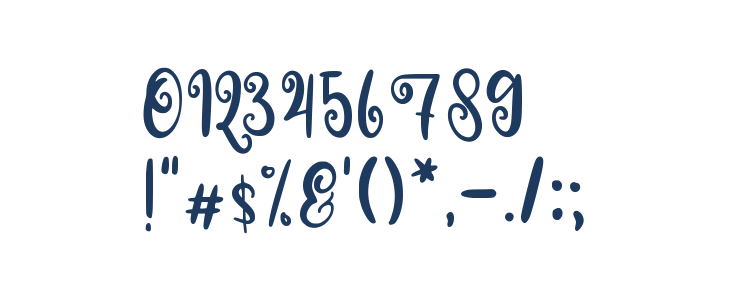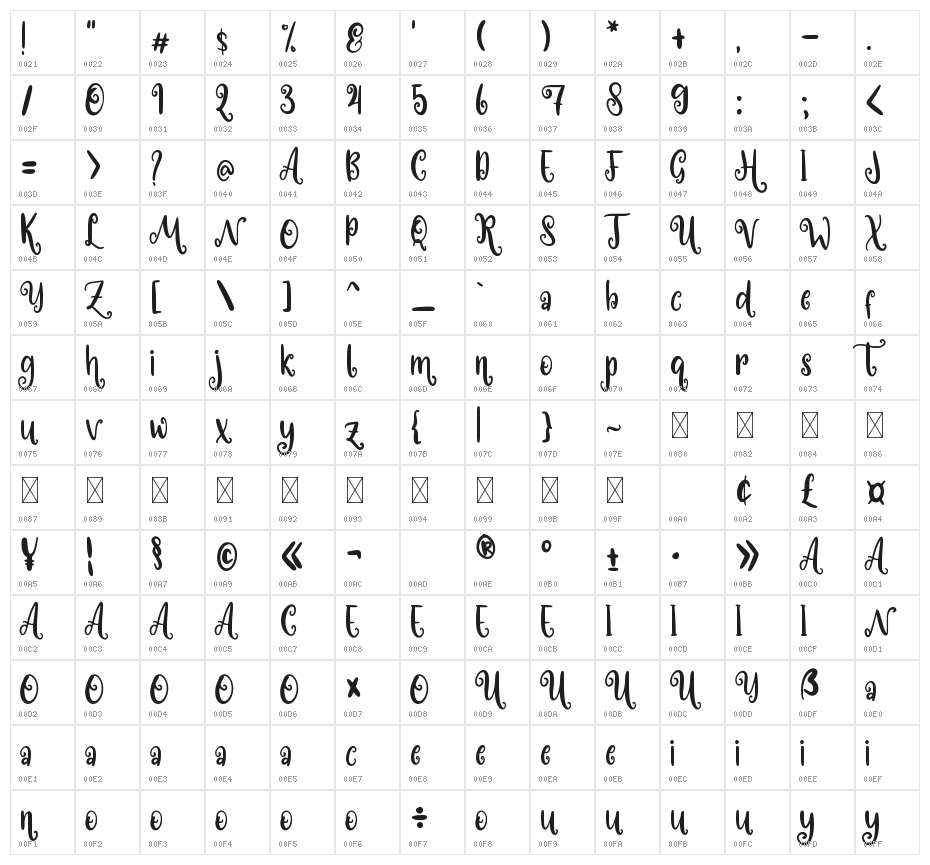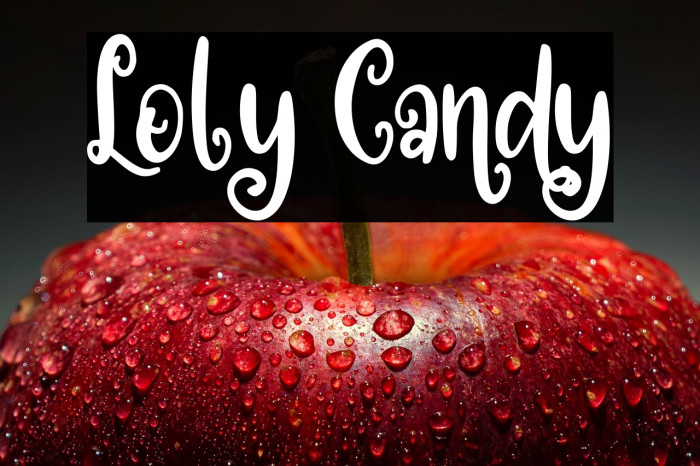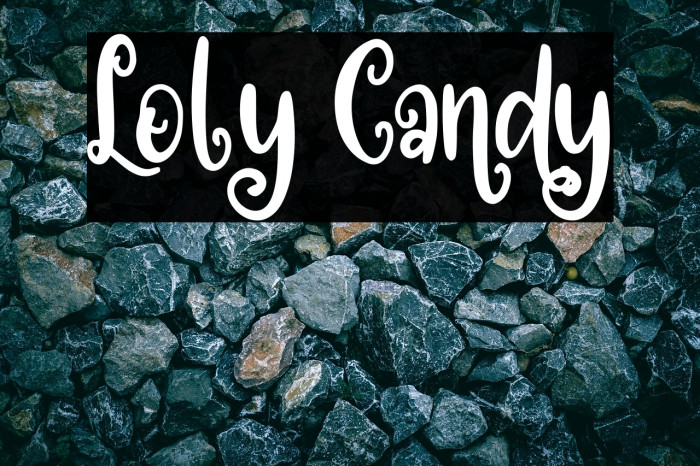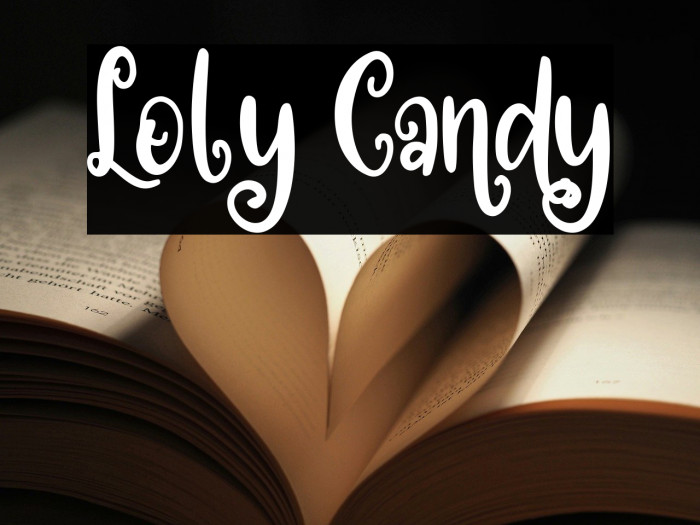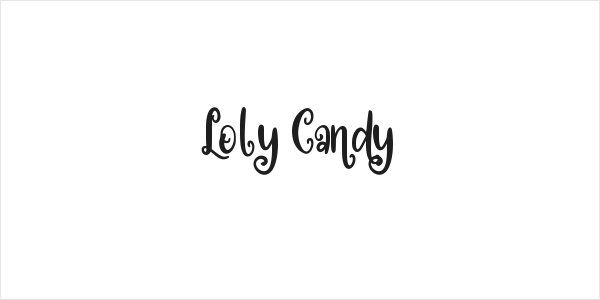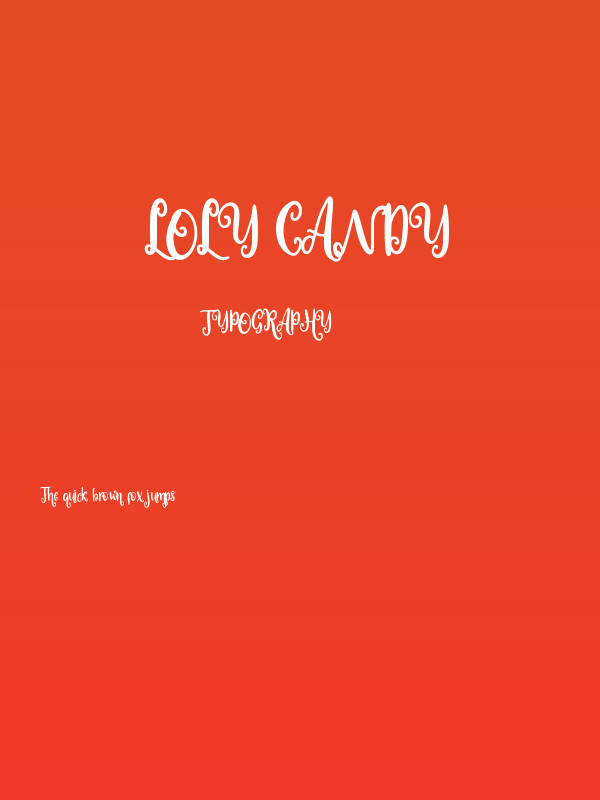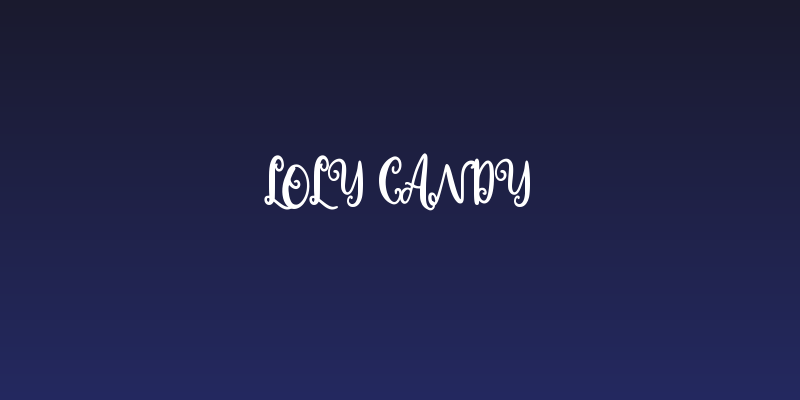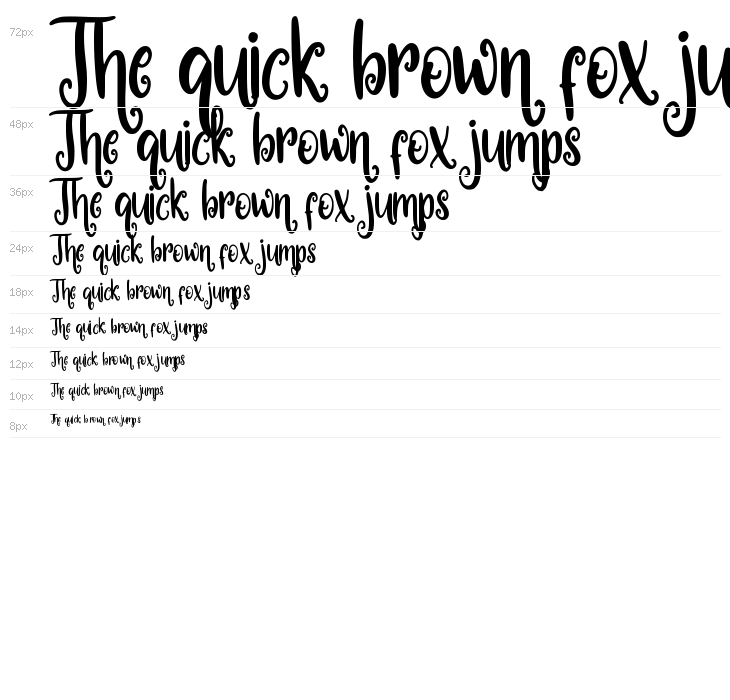
Loly Candy Font
Loly Candy Description
This playful and whimsical font features a unique blend of curly and rounded elements, giving it a lively and cheerful appearance. The uppercase letters are adorned with decorative swirls, while the lowercase letters maintain a consistent, flowing style. The numerals and special characters continue this theme, with each character exhibiting a distinct personality. The font's bold strokes and high contrast make it stand out, while its decorative nature adds a touch of fun and creativity. It's perfect for projects that require a lighthearted and engaging aesthetic.
Overall StylePlayful, Whimsical, Decorative
Use CaseHeadlines, Logos, Invitations
Proposed ProjectsIdeal for children's books, party invitations, playful branding, and creative posters.